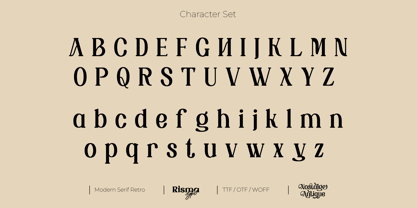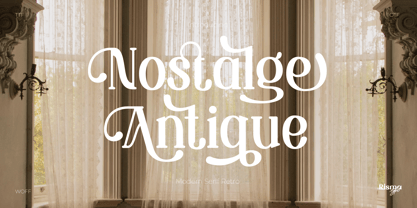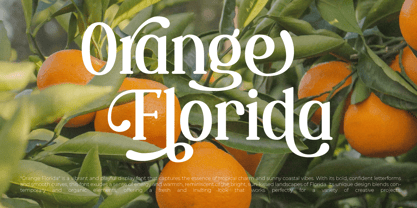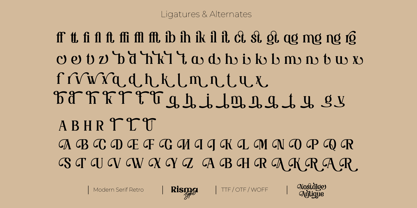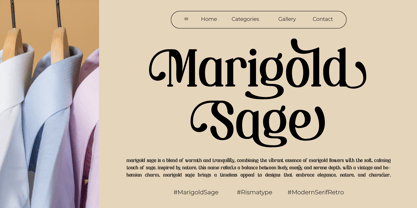
Nostalge Antique
by Risma Type
The Nostalge Antique Font Family was designed by Risma Mulyasari and published by Risma Type. Nostalge Antique contains 2 styles and family package options.
Nostalge Antique - Modern Serif Retro Font, from Rismatype. Suitable for any projects such as: logos, branding projects, homeware designs, product packaging, mugs, quotes, posters, shopping bags, t-shirts, book covers, name cards, invitation cards, greeting cards, labels, photography, watermarks, special events, and all your other luxury and beautiful projects that need a touch of retro elegance.
About Risma Type
Risma Type is a font design studio based in West Java, specializing in creating distinctive typefaces with both character and functionality. Founded by a stay-at-home mother with a deep passion for typography, every creation reflects dedication, artistry, and genuine love for design. At Risma Type, we believe every letter carries its own soul, combining aesthetics and usability to convey emotion, story, and identity. Through a modern approach and meticulous attention to detail, we craft fonts that are not only visually appealing but also effortless to use. Each typeface is created with heart and purpose, empowering designers to express their ideas with confidence, freedom, and meaning.